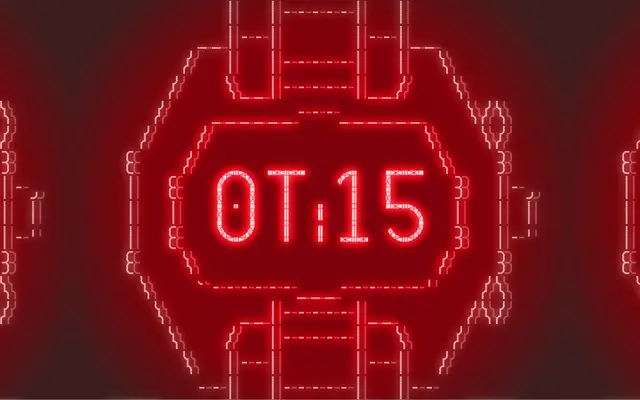
Sector
Off Type · Valerio Monopoli
A grid-locked display typeface by Valerio Monopoli built on the logic of retro LCD segmented displays, spanning 12 styles across normal and narrow widths.
Every glyph in the family derives from a single fixed grid module, a constraint that channels the segmented logic of retro LCD screens into a typeface capable of 700 glyphs per style, including diacritics, small caps, alternates and fractions. The family splits into Sector and the sharper-terminated Sector Narrow, each running Light, Regular and Bold weights alongside three matching Rotalic styles that introduce slant without breaking the grid. Styles ship with Base, COLR colour and blueprint grid variants, making it equally serviceable as a bold headline stencil or an unexpectedly readable text face.
Built on a fixed grid inspired by retro LCD segmented displays, Sector is a geometric display face with a strict modular construction; its playful stencil-like forms and optional COLR/grid overlays place it firmly in the display category.